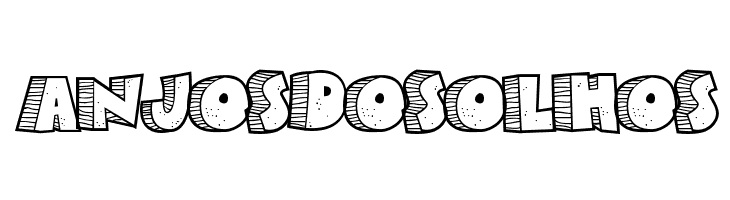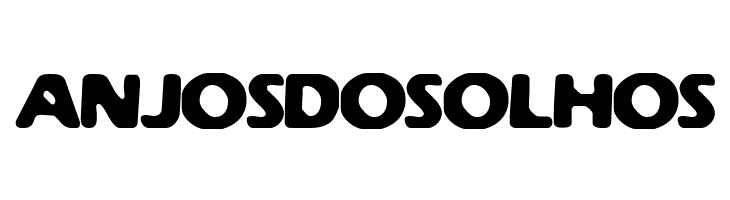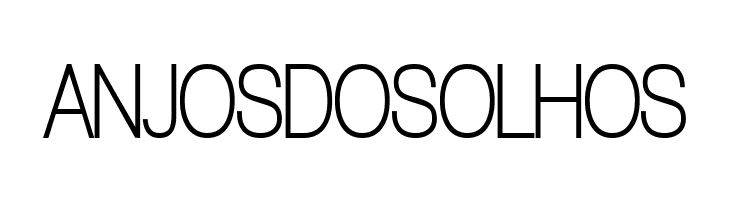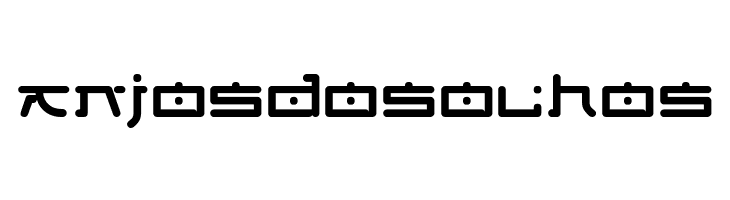
Oh Mai Mai Font
Font by www.ohmaimaifont.com
A playful, bubbly font with thick, rounded shapes and a whimsical style.
Warover Regular Font
Font by
defharo
A bold, stencil-like font with rugged, jagged edges for impactful designs.
SillySet Font
Character
A playful, decorative font with unique patterns and textures in each letter.
ZF2334 After A Rain Regular Font
Font by
ZedFonts2334
A modern, elegant font with balanced characters and clear readability.
Roke1984 Font
Juan Ramon Pastor
A bold, geometric font with architectural and mathematical elements.
Plumber's Gothic Font
A bold, geometric font with an industrial, robust design.